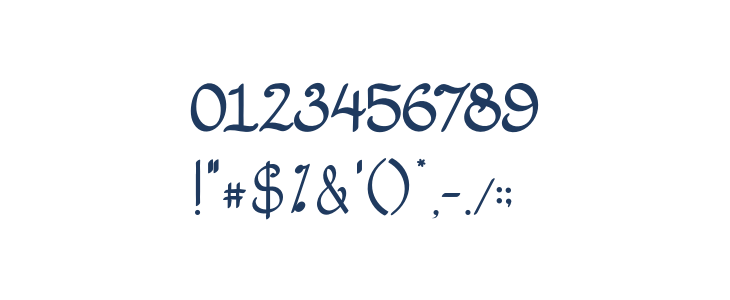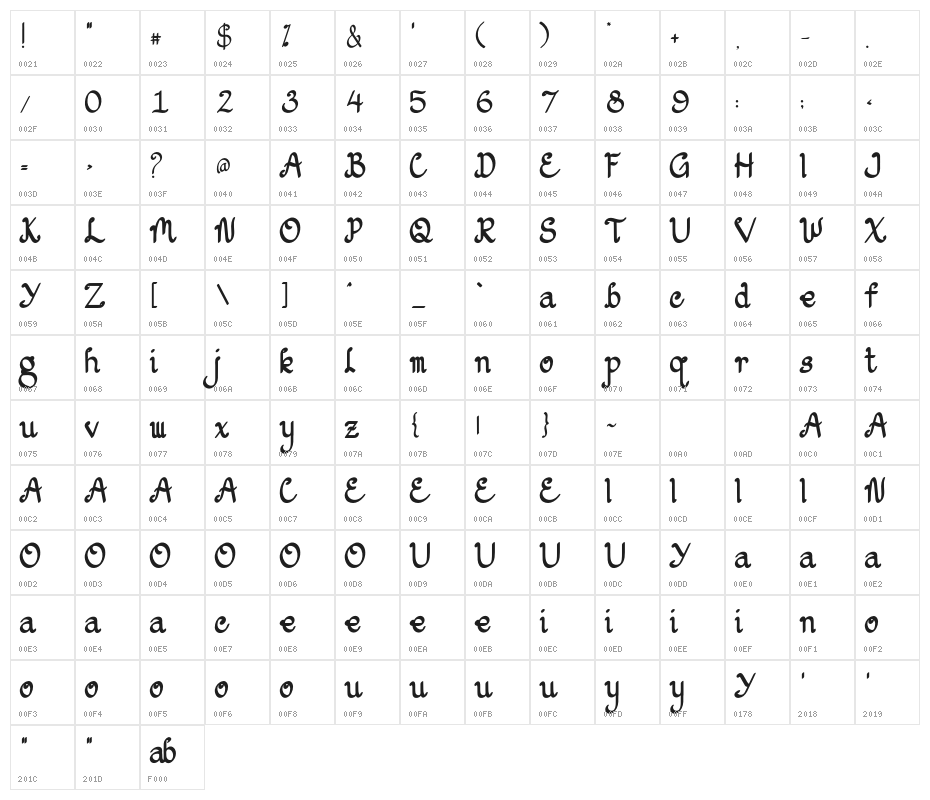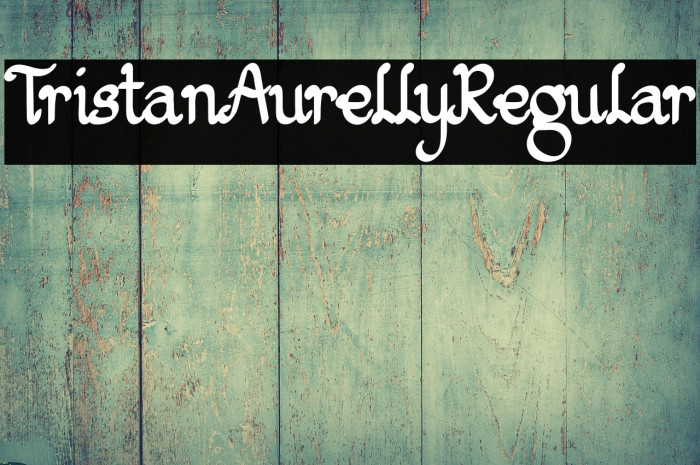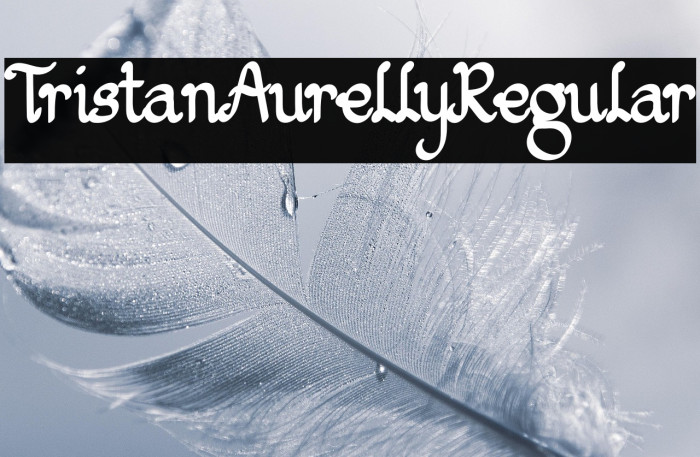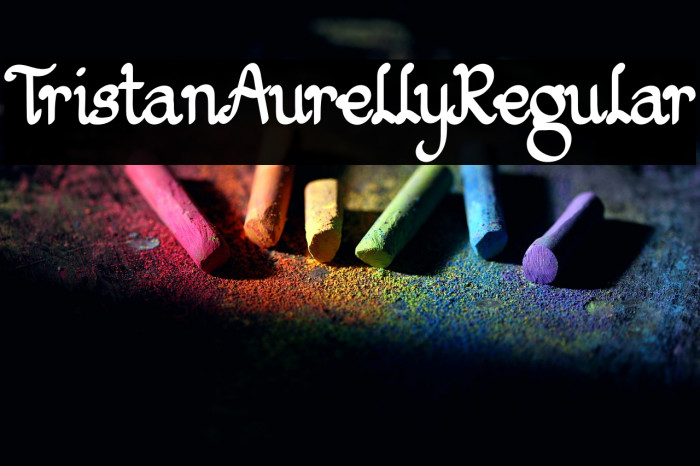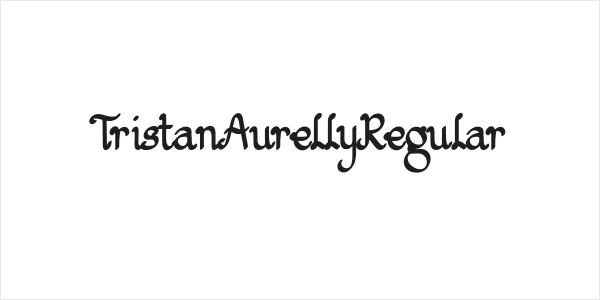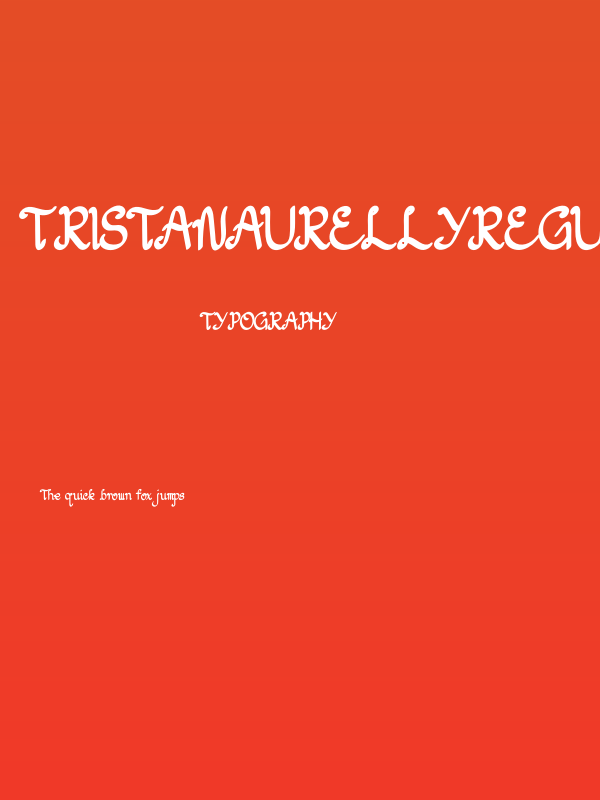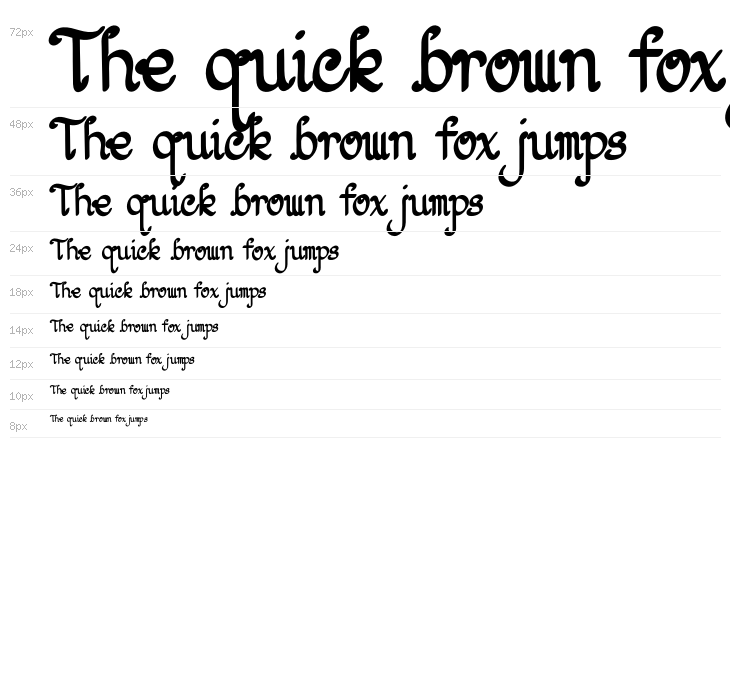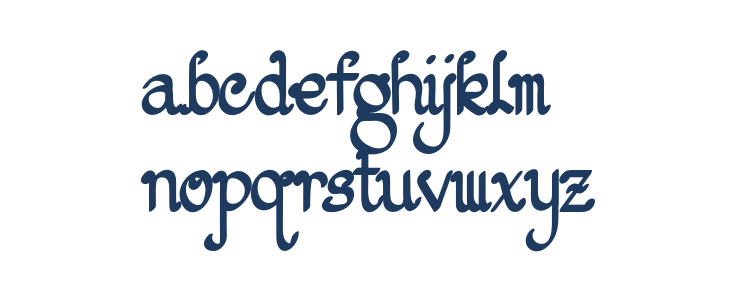
TristanAurellyRegular Font
TristanAurellyRegular Description
This font features a playful and decorative style with a handwritten flair. The characters are bold and exhibit a unique, flowing design that combines both elegance and whimsy. The uppercase letters are particularly distinctive, with exaggerated curves and loops that add a sense of movement and creativity. The lowercase letters maintain this fluidity, creating a cohesive look across the alphabet. Numbers and special characters are designed with the same attention to detail, ensuring consistency throughout. The font's overall appearance is both artistic and approachable, making it suitable for a variety of creative applications.
Use CaseLogos, Headlines, Creative projects
Proposed ProjectsIdeal for greeting cards, invitations, branding projects, and creative posters.